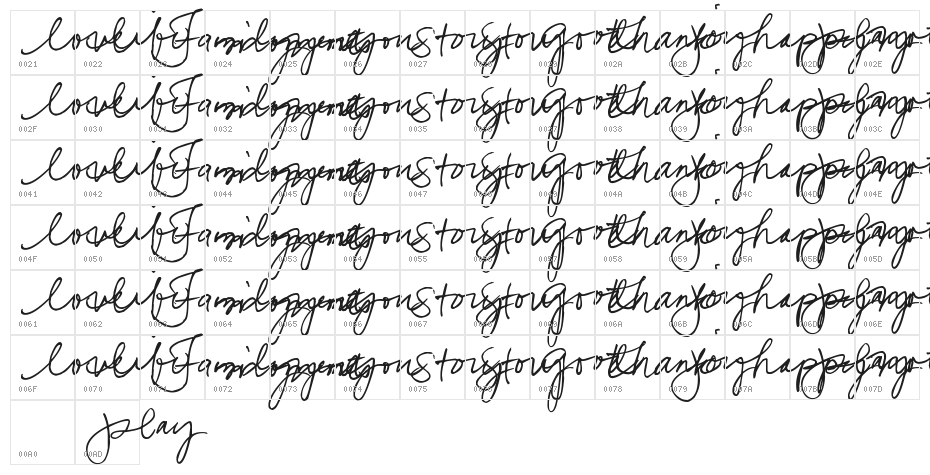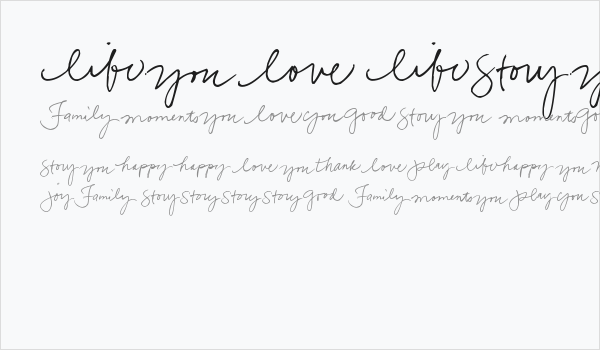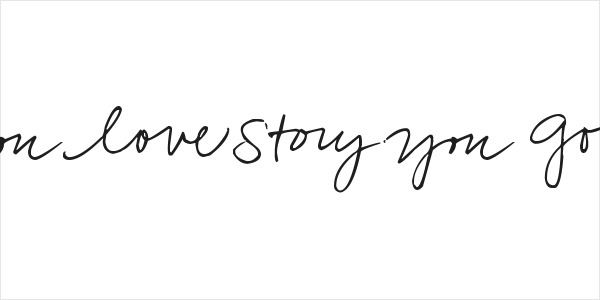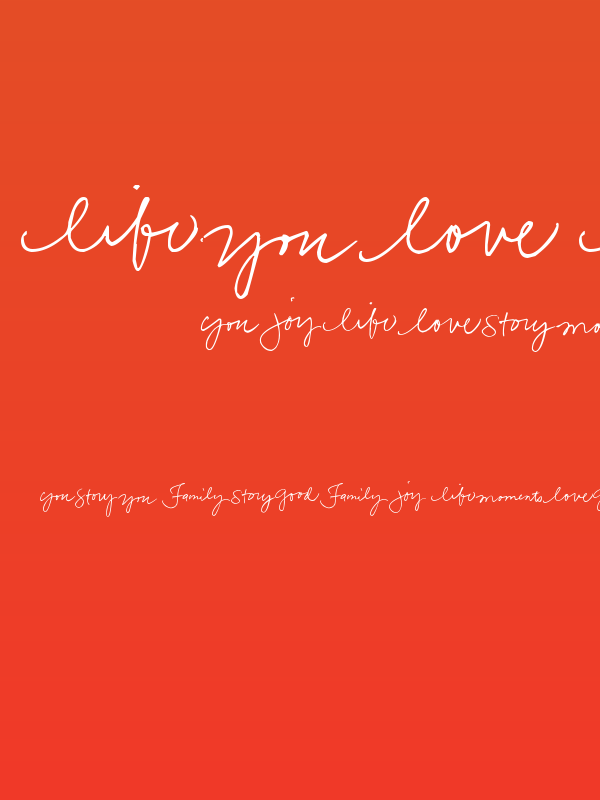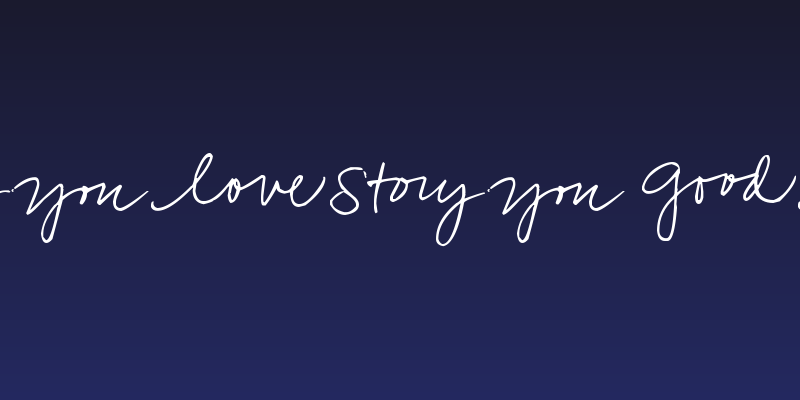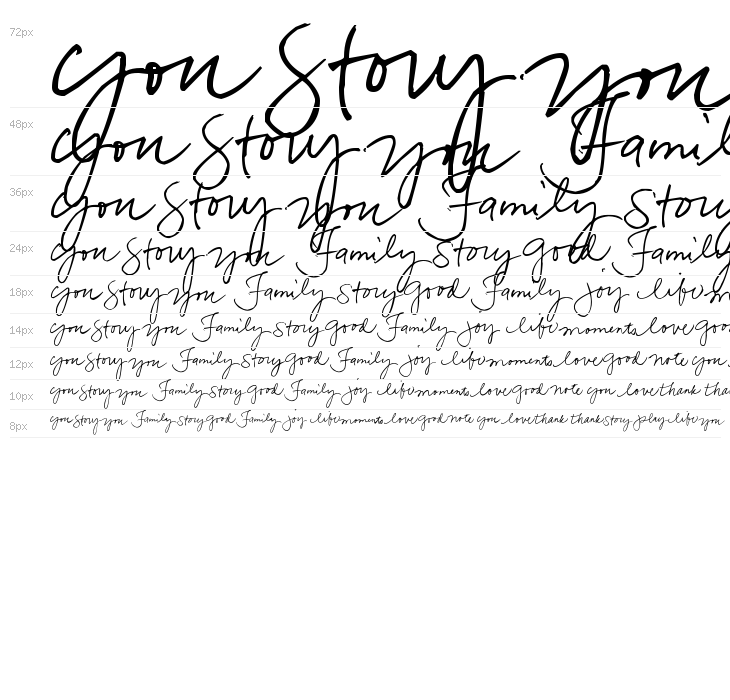
Pea Bhea's Words Font
Pea Bhea's Words Description
This font embodies a whimsical and flowing handwritten style, characterized by its elegant and fluid strokes. The letters are connected in a cursive manner, giving it a personal and intimate feel. The font features a consistent slant, adding to its dynamic appearance. The strokes vary in thickness, providing a natural and organic look. It captures the essence of handwritten notes, making it perfect for conveying warmth and personality. The overall design is both charming and sophisticated, suitable for projects that require a touch of elegance and individuality.
| Use Case | Logos, Invitations, Personal notes |
| Proposed Projects | Ideal for wedding invitations, personal letters, greeting cards, and branding projects that require a personal touch. |